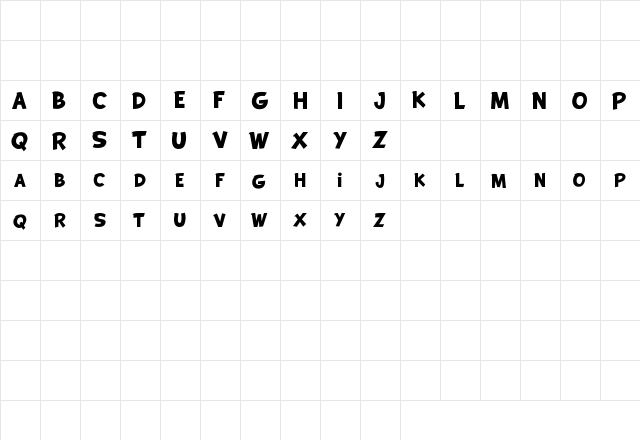
DUCKO DEMO Regular Font Preview
DUCKO DEMO Regular
DUCKO DEMO Regular Font Details
| Designer | Fachranheit 2019 |
Design Context for DUCKO DEMO Typeface
DUCKO DEMO is a composed and adaptable typeface that performs quietly and consistently across a wide range of design contexts.